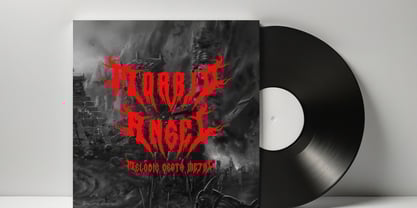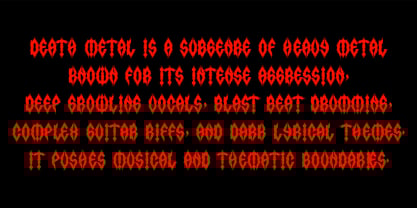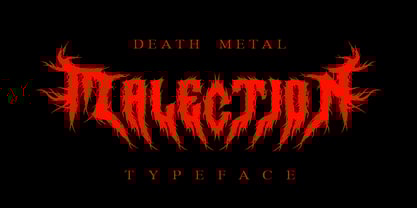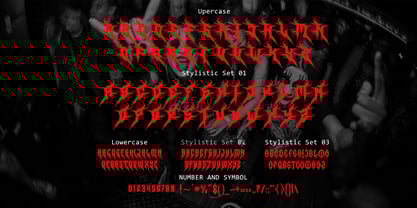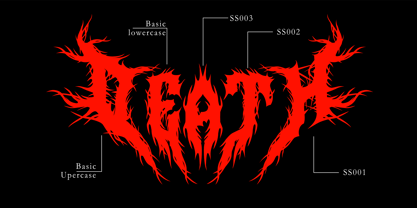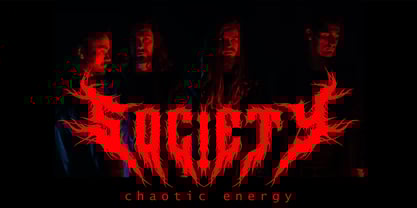
Malection
by Zamjump
The Malection Font Family was designed by Zamjump, Ahmad Zamzami and published by Zamjump. Malection contains 1 styles. More about this family
Unleash the raw energy of the underground with MALECTION, a death metal-inspired display font designed to dominate the stage and scream intensity. With its razor-sharp edges, twisted forms, and chaotic yet deliberate design, MALECTION captures the brutal aesthetic of extreme music culture.
This font features three alternate character sets, allowing you to mix and match styles for maximum aggression and variety. Complete with numbers and a full set of symbols, it's ready to bring your most extreme visions to life.
Perfect for:
Album covers that demand attention
Band logos with attitude and identity
Concert and tour merchandise
Promotional posters and stage props
Branding for extreme subcultures and metal events
MALECTION
isn’t just a typeface it’s a visual extreme. Embrace the madness.